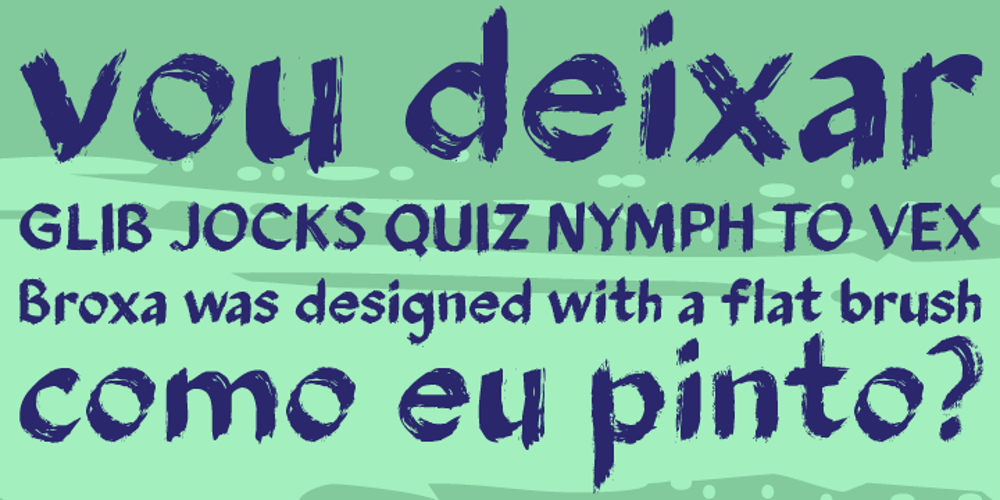
Broxa
Broxa font
Broxa Font Family was designed by Gustavo Lassala and published by BRtype. Broxa contains 1 styles and family package options. Broxa was designed with a flat brush and inspired by Roman Sans Serif Alphabet